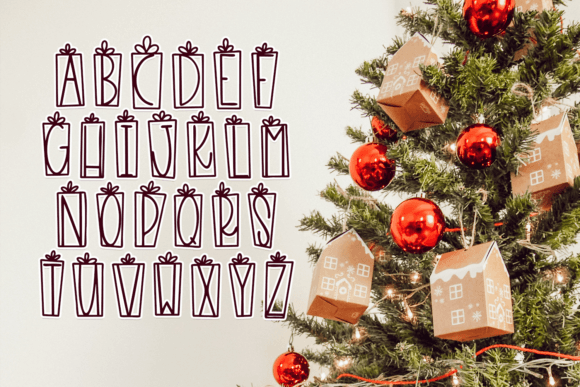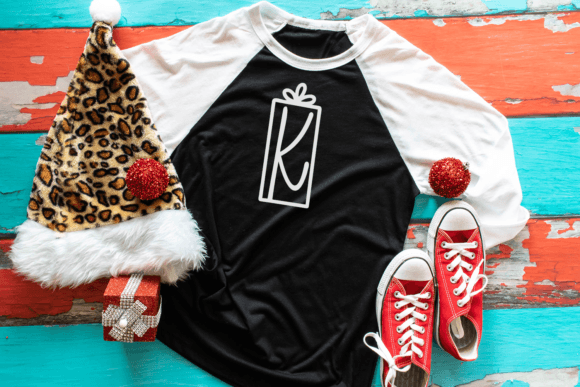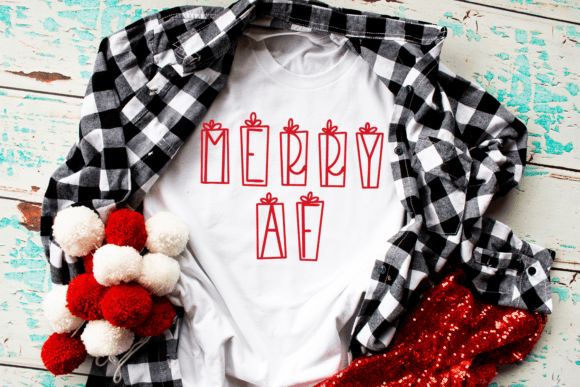
Present Day Font – Free Download
Introduction to Present Day Font
Introducing Present Day, a fun decorative font.
Present Day features cute uppercase monograms, with present boxes around the letters This font is perfect for gift tags, monogrammed items, stockings, and more.
Present Day Font offers exceptional quality and versatility, making it a valuable addition to your design toolkit. Whether you’re creating for personal projects or commercial use, Present Day Font delivers professional results.